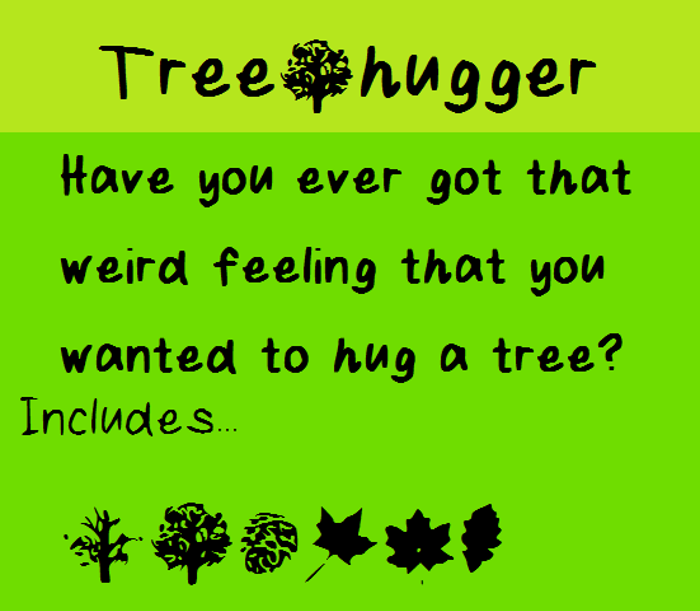
Tree Hugger Font
Tree Hugger is a new font made by me, and it includes sweet and fuzzy doodles of trees, a pinecone and some leaves. Just press either [,],{,},( or )
PS: It looks really better when you use it in bold!